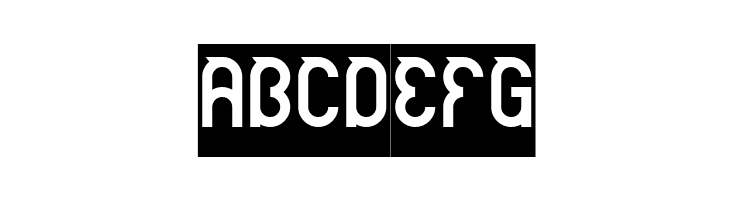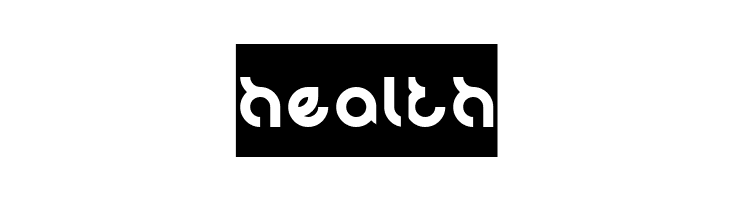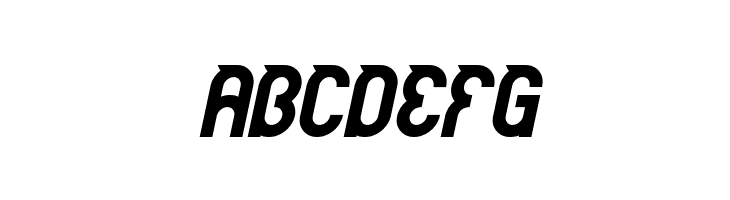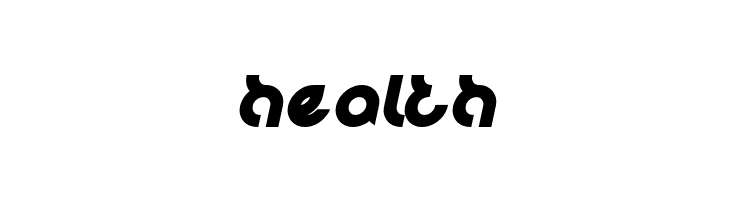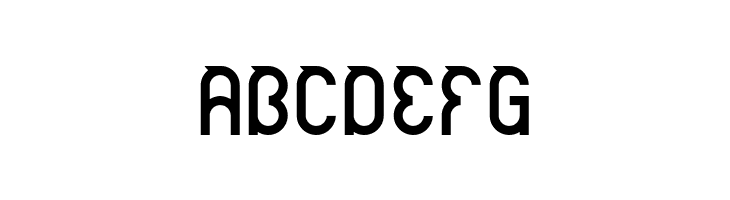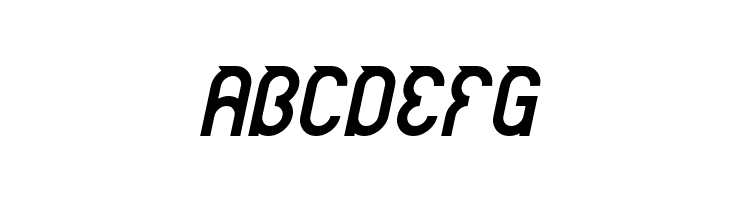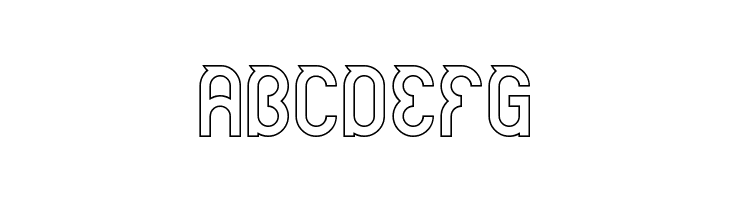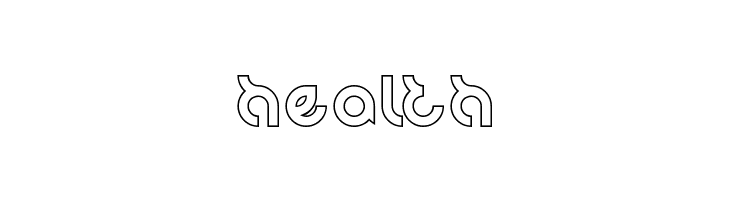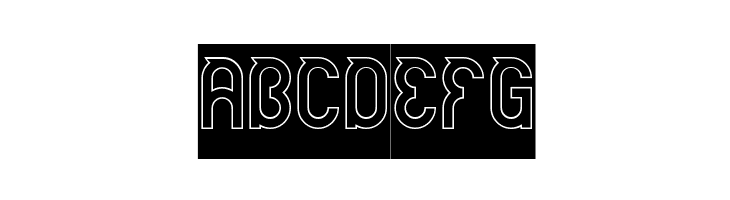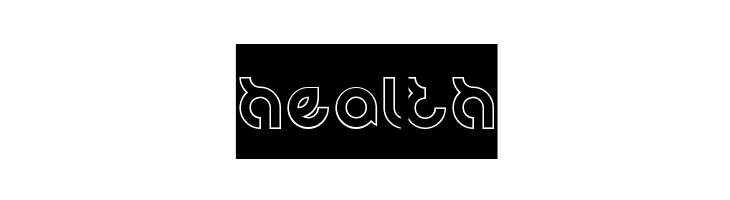
• noakatz Bold Italic
A bold, italicized font with dynamic and robust character design.
• noakatz Italic
A bold, modern italic font with dynamic curves and a striking slant.
• noakatz-Hollow
A modern, hollow decorative font with geometric and angular elements.
• noakatz-Hollow-Inverse
A modern, hollow inverse font with bold geometric shapes and clean lines.
• noakatz-Inverse
A bold, modern font with geometric shapes and rounded strokes.
• noakatz-Light
A modern, geometric font with bold, rounded characters and a playful style.